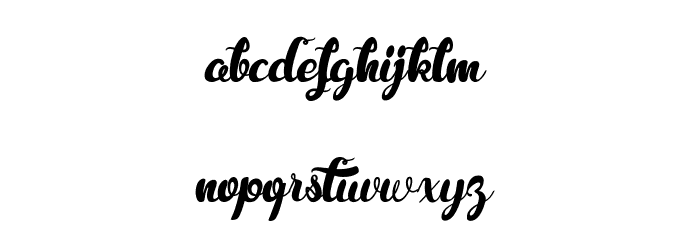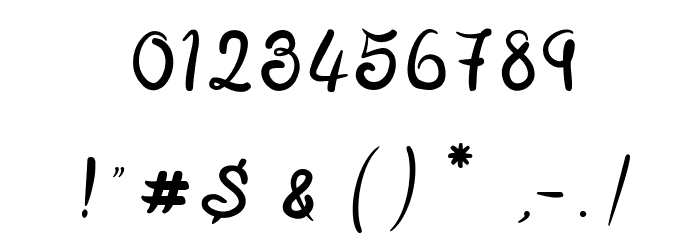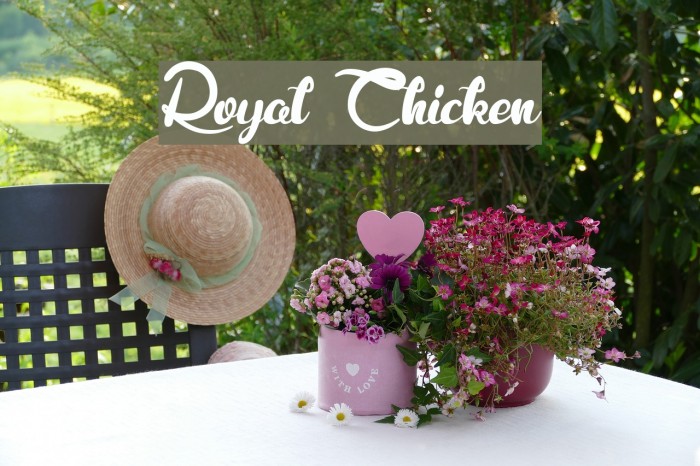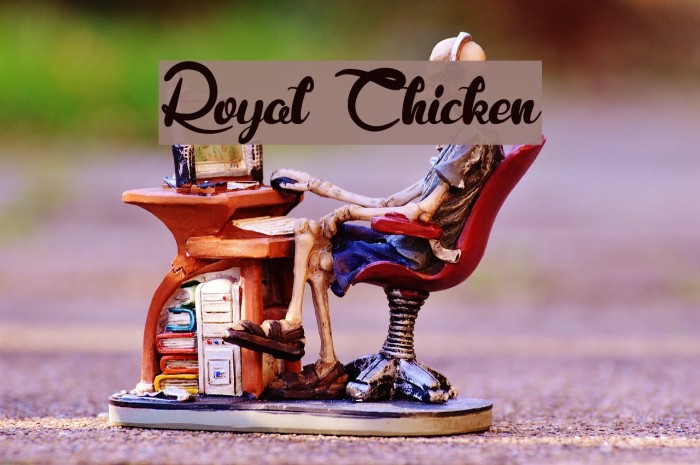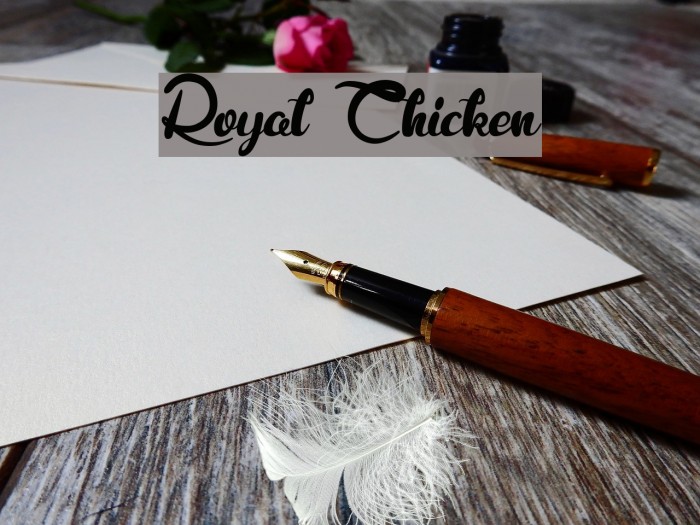
Royal Chicken Font
This font exudes a playful yet elegant style, characterized by its flowing script and decorative flourishes. The uppercase letters are bold and sweeping, with exaggerated curves and loops that give a sense of movement and grace. The lowercase letters maintain this fluidity, with a slightly more compact form that complements the uppercase. Numbers and special characters are designed to match the overall aesthetic, with a consistent stroke weight that ties the entire set together. The font's unique style makes it stand out, offering a blend of traditional script elements with a modern twist.
A decorative script font with elegant curves and playful flourishes.
- Proposed Projects: Ideal for wedding invitations, greeting cards, branding projects, and any design that requires a touch of elegance and sophistication.
- Use Case: Logos, Invitations, Decorative text